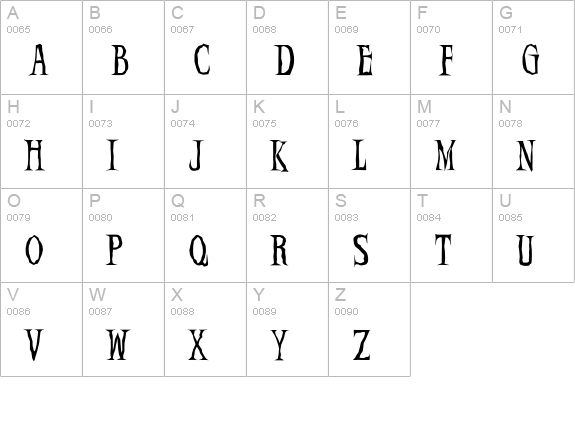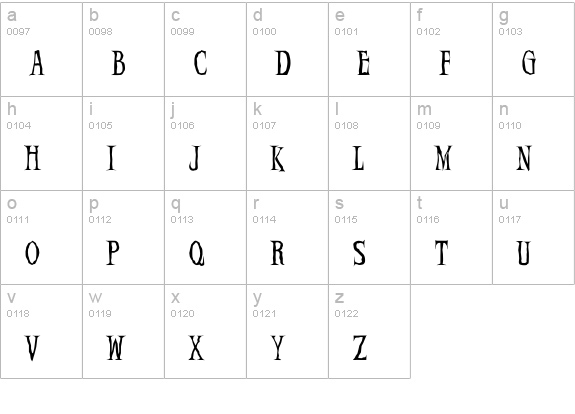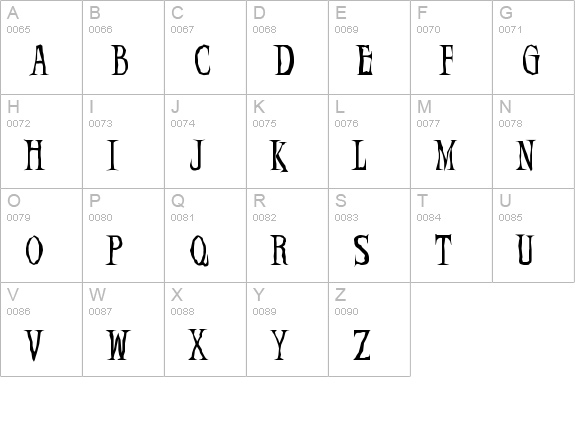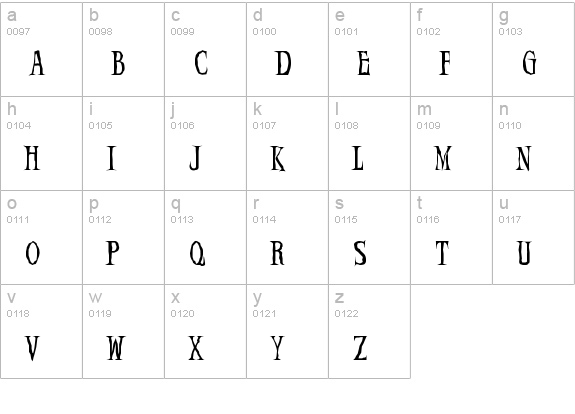
DemonKnight Font Details
Introducing DemonKnight font, a captivating and edgy typeface perfect for adding a touch of dark mystique to your designs. With its sharp angles and intricate details, DemonKnight exudes a powerful and gothic vibe that will make your text stand out. Whether you're working on a poster, logo, or any other project that calls for a bold and unique font, DemonKnight is sure to make a lasting impression. The best part? DemonKnight is available for free download at FontsMarket.com, making it easily accessible for all your creative endeavors. So go ahead, unleash the power of DemonKnight and take your designs to the next level.